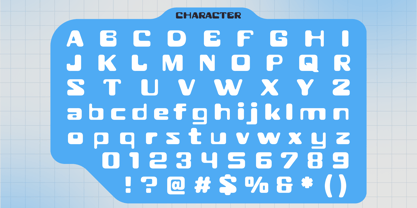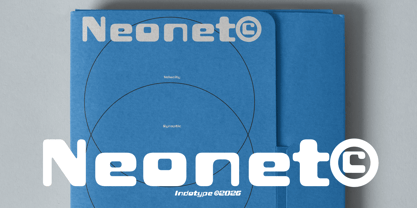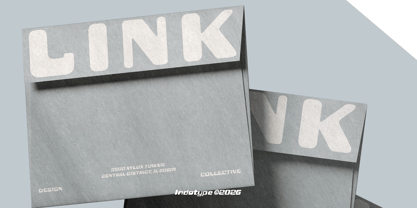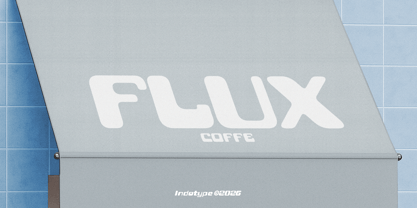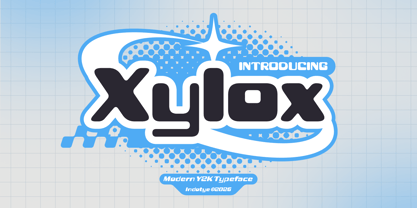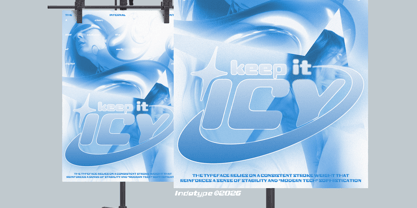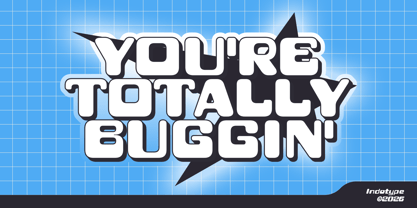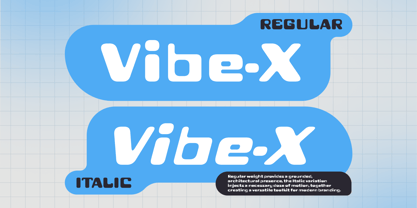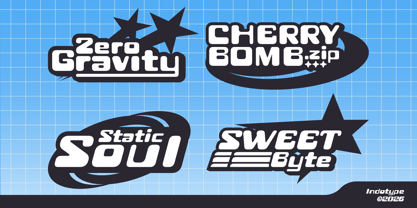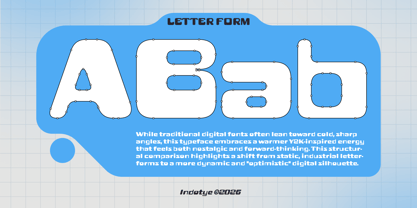
IT Xylox
by Indotype
The IT Xylox Font Family was designed by Dede Kurniawan and published by Indotype. IT Xylox contains 2 styles and family package options. More about this family
Xylox is a bold, unapologetic throwback to the digital dreamscape of the late 90s and early 2000s—a time of pixelated optimism, translucent gadgets, and futuristic optimism. This Y2K-inspired typeface features sleek, elongated letterforms, sharp angles, and subtle digital distortion that evokes the aesthetic of vintage computer screens, sci-fi interfaces, and rave culture flyers. It's retro-futurism, rebooted for today. Designed for projects that want to capture that nostalgic yet forward-looking energy, Xylox is perfect for nightlife branding, tech startups with a retro edge, fashion campaigns channeling 2000s revival, and music projects embracing the cyber aesthetic. It's sleek, buzzy, and dripping with digital-era attitude. • Ideal for: Nightlife & Club Branding, Retro Tech Startups, Y2K Fashion Campaigns, Music & Rave Flyers, Social Media Filters, Digital Art & NFTs. • Classification: Display, Sans-Serif, Y2K, Retro-Futurism. • Attributes: Nostalgic, Sleek, Digital, Edgy, Futuristic, Playful, Cyber.